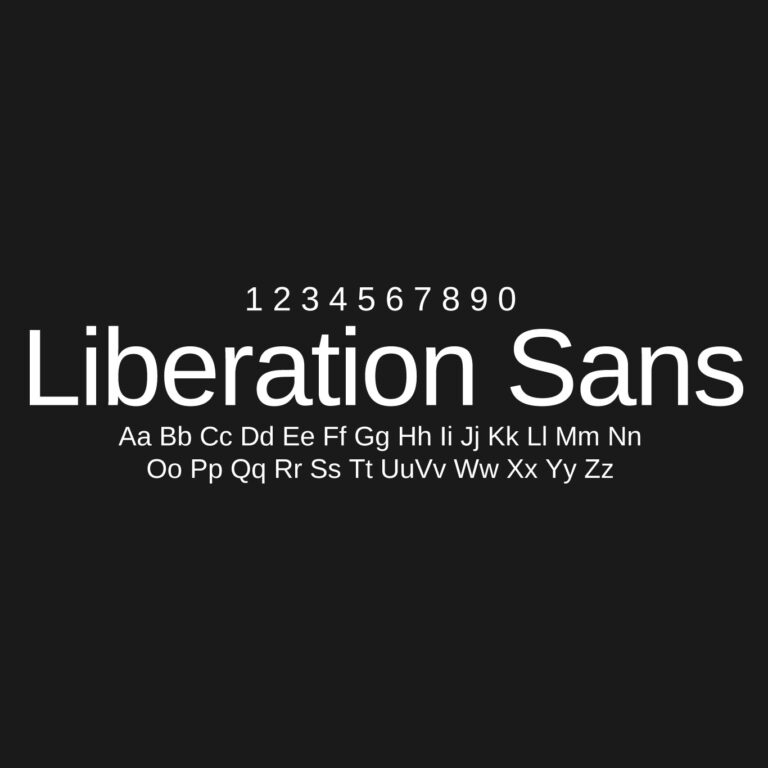
Liberation Sans is a metrically compatible alternative to Arial, designed for documents, interfaces and professional typography where clean readability is important. It has a simple sans-serif structure, practical spacing and a familiar appearance, making it useful for websites, presentations, office documents, academic layouts, UI mockups, reports and everyday digital design projects.
Font Name: Liberation Sans
Font Type: Sans Serif
Category: Neo-Grotesque Sans Serif / Arial Alternative
Visual Style: Clean, neutral, readable, practical, professional
Best For: Documents, websites, UI design, presentations, reports, academic layouts and business typography
Designer: Steve Matteson